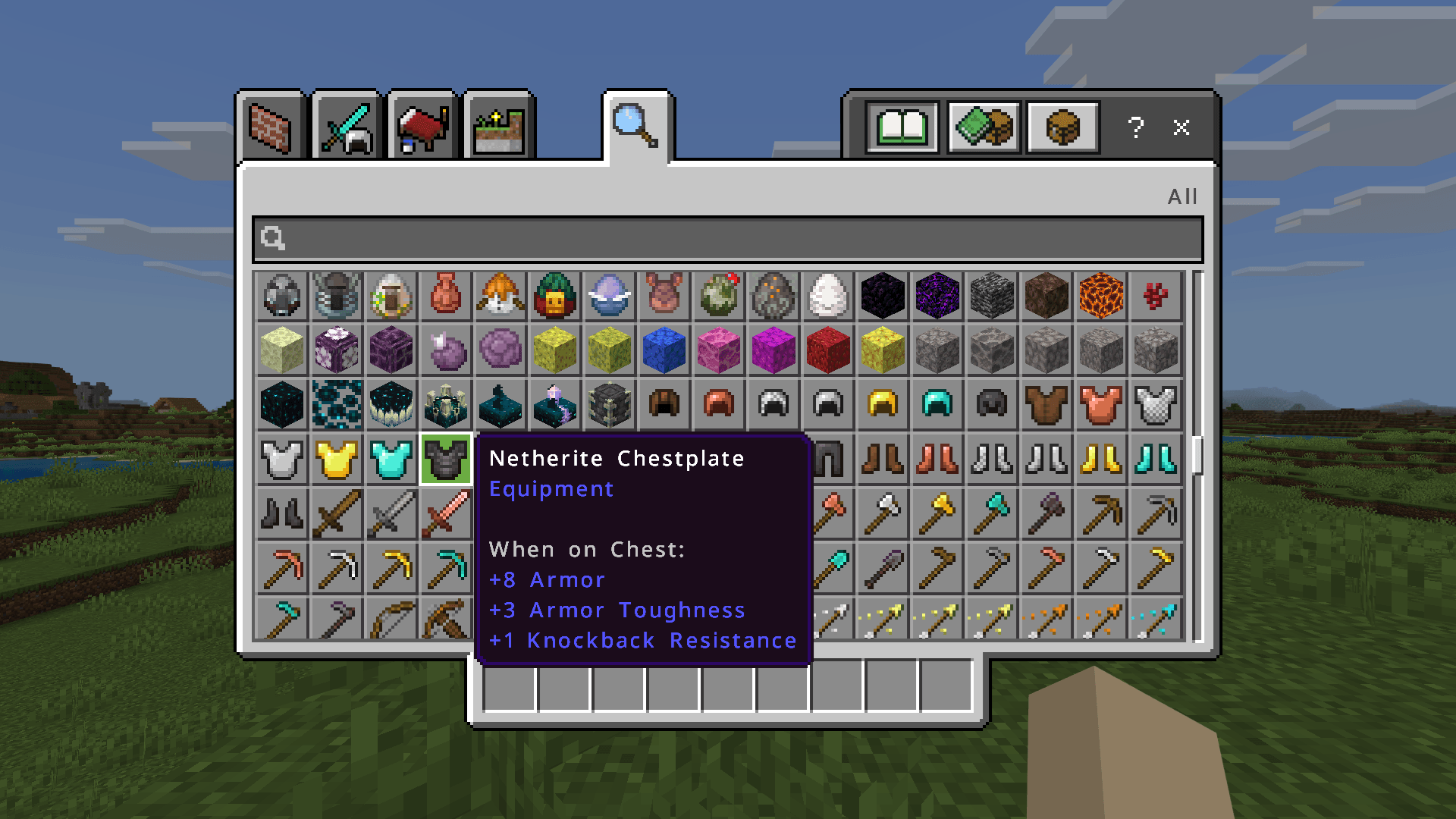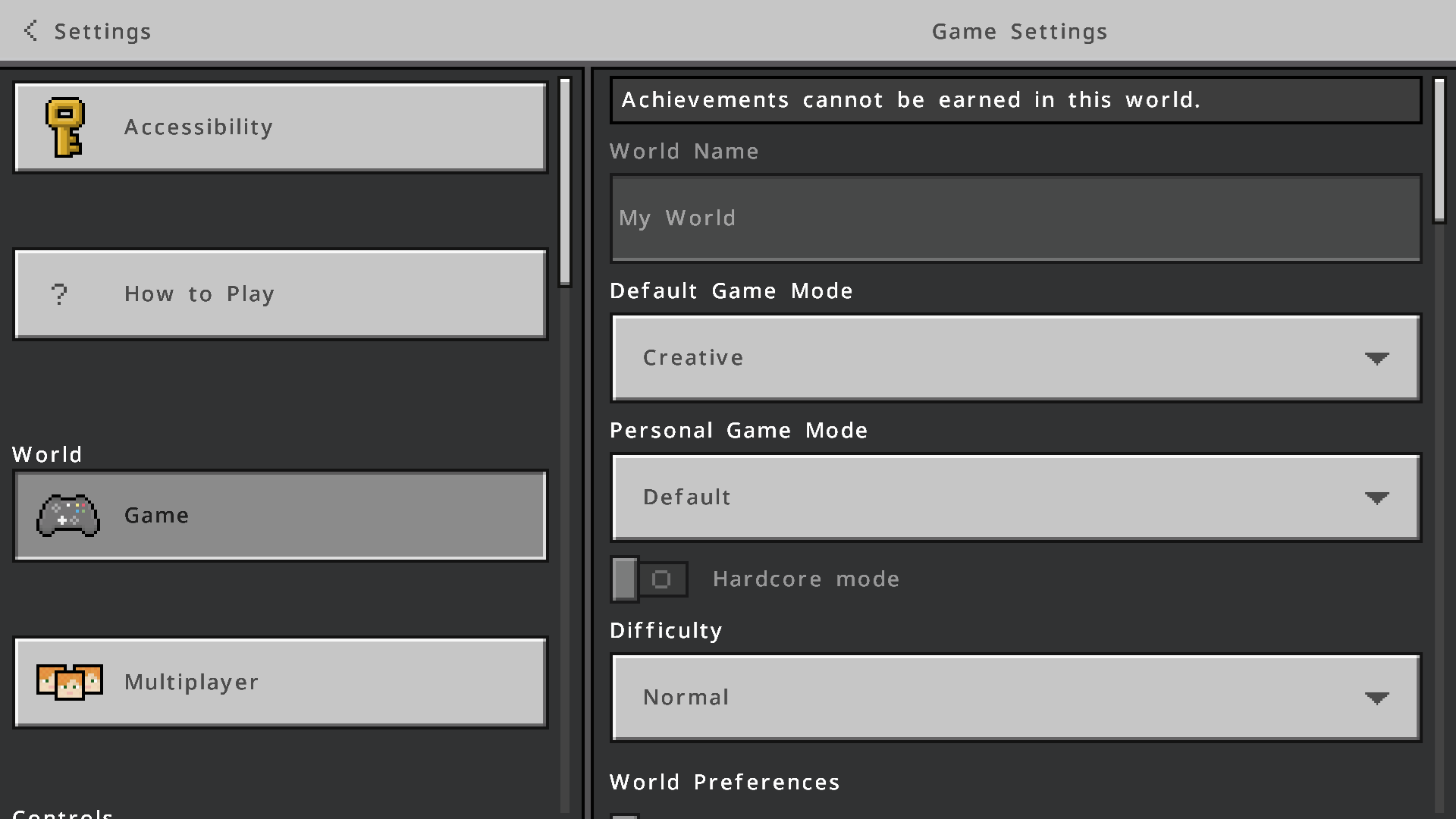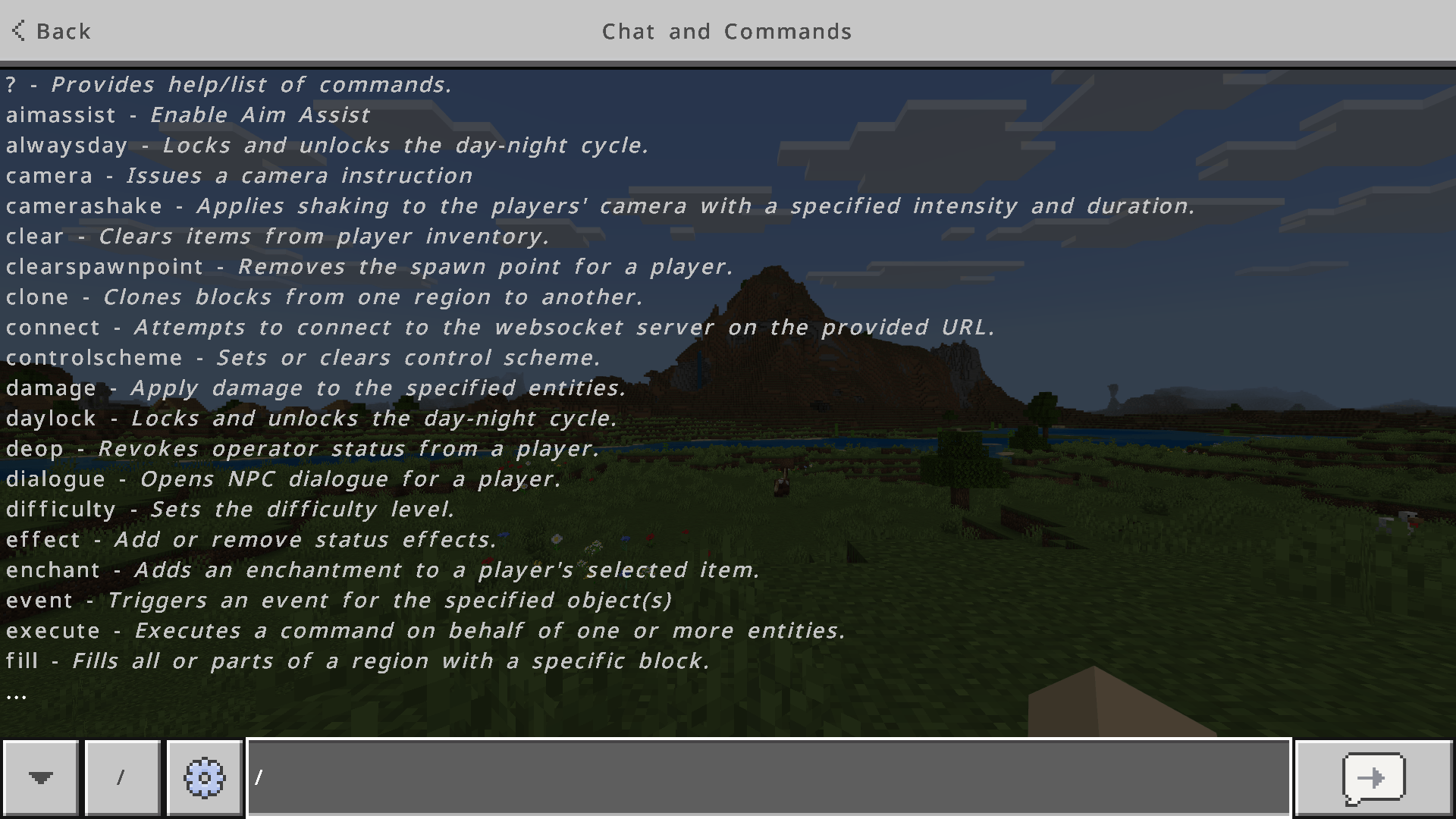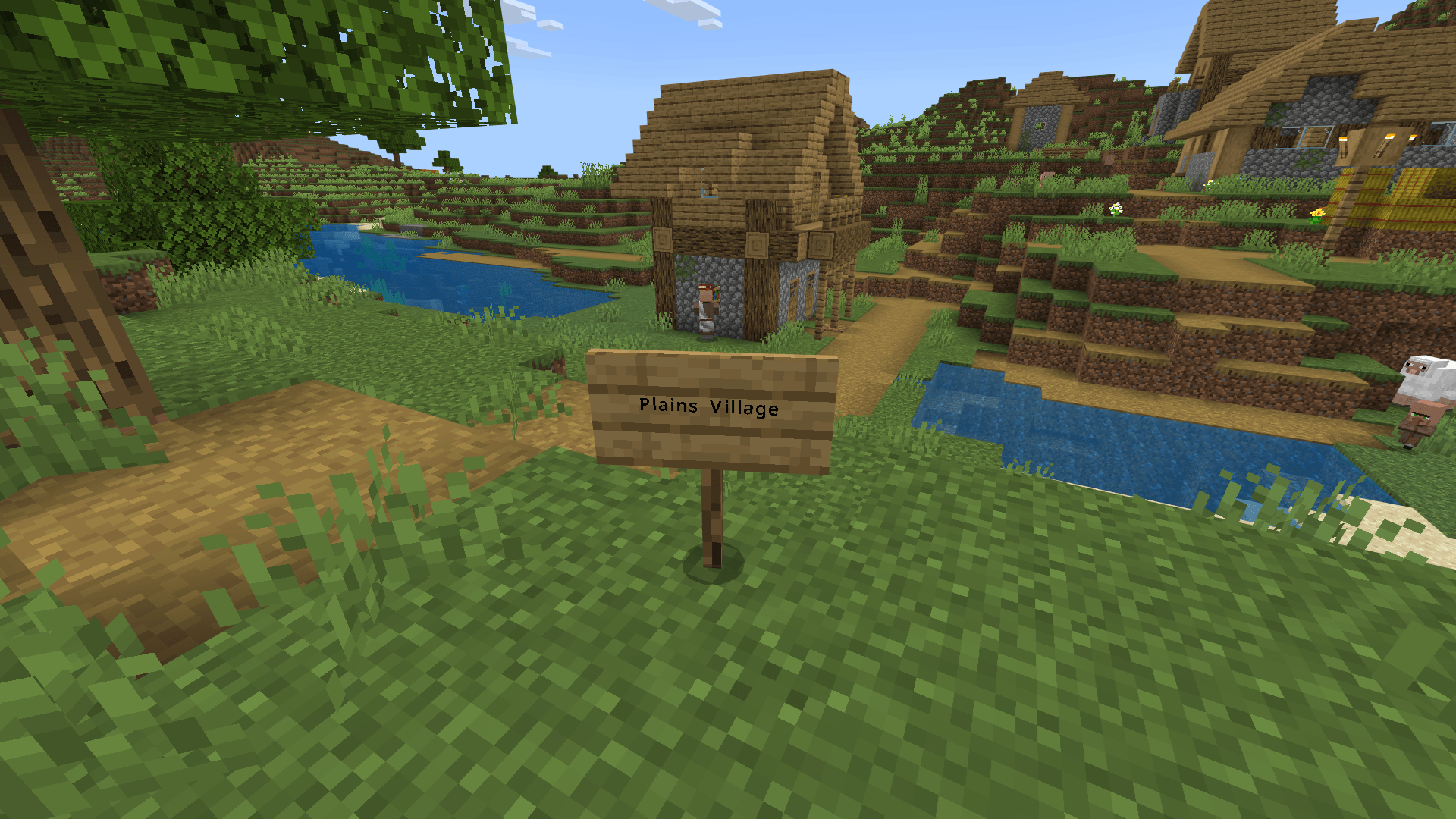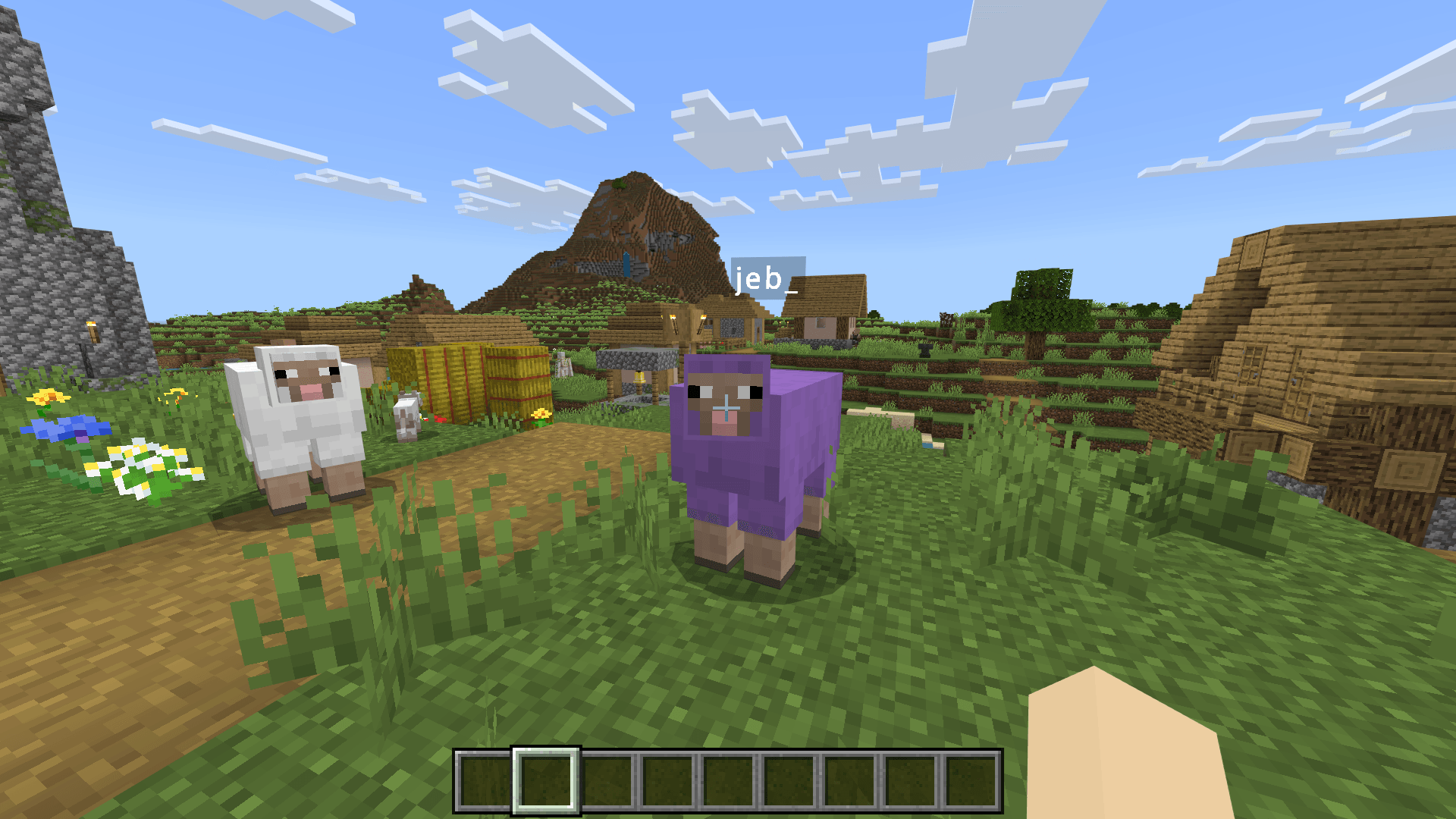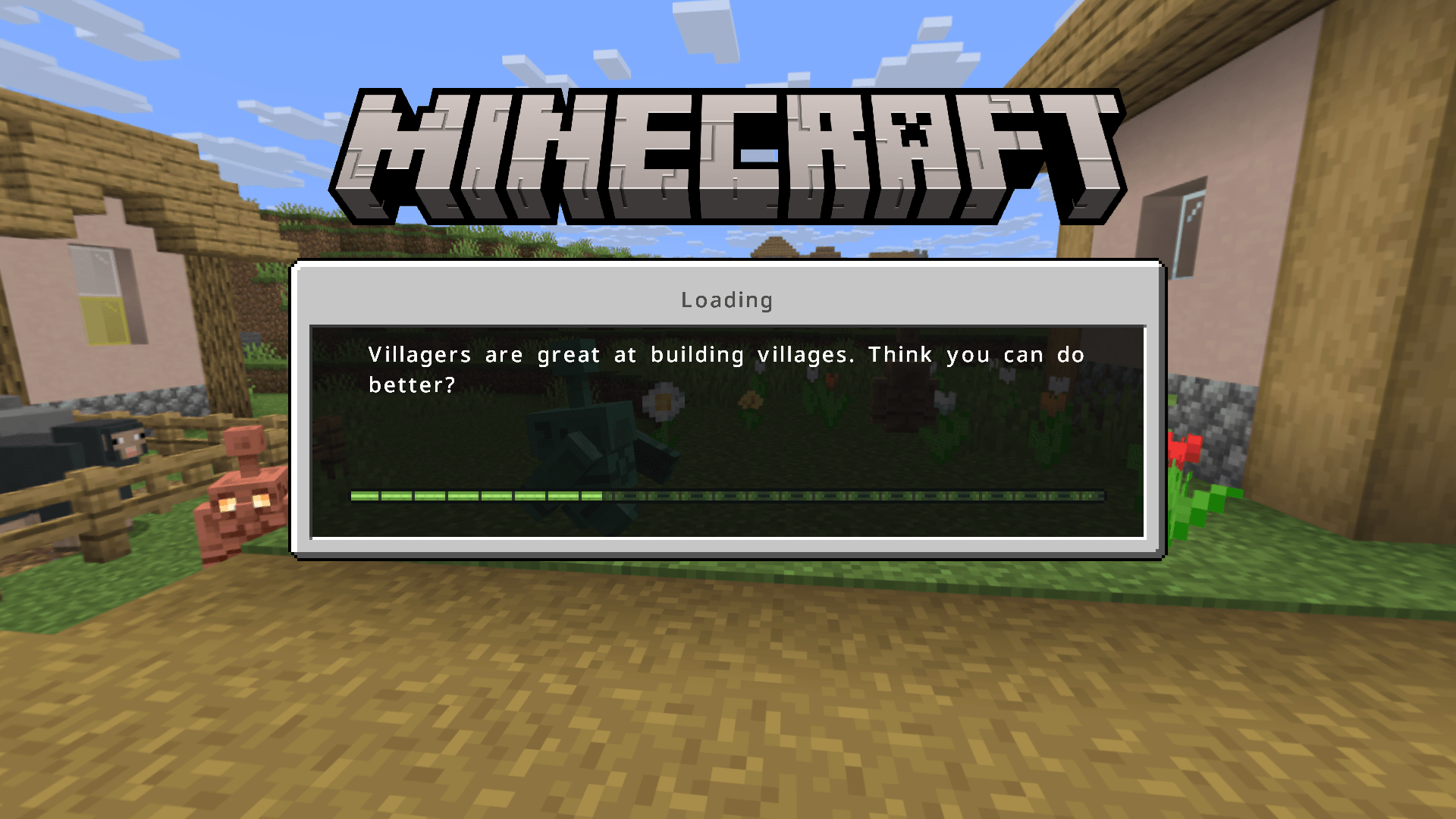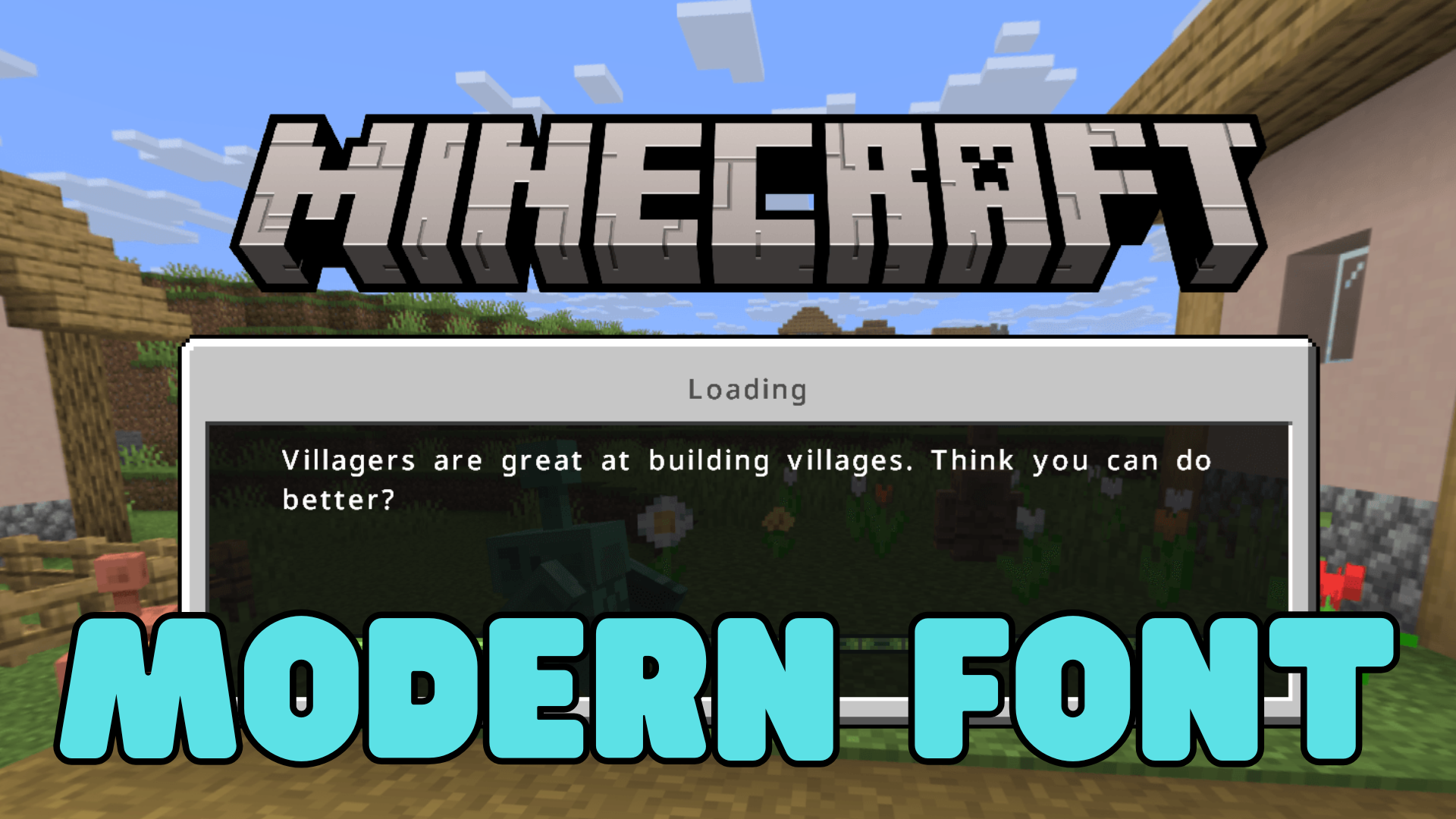
Modern Font Texture Pack (1.21, 1.20) changes the default font. The new font reduces thickness, minimizing the rough feel of Unicode characters and improving readability on high-resolution screens.
Features:
- The font is thinner and more compact.
- Unicode characters display more smoothly.
- Easier to read on high-resolution screens.
- Balanced font size.
- The interface layout remains unchanged.